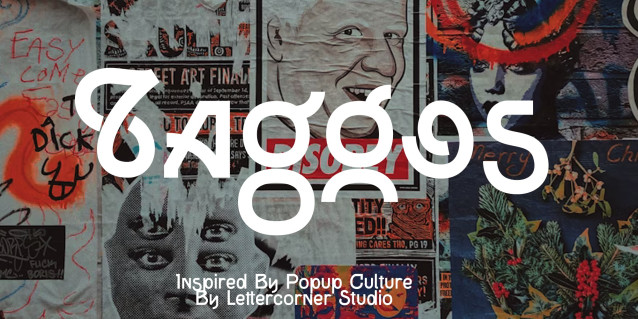
Taggos Font
Taggos Font is an elegant display font, that features a very delicate and classy look. Not too thin and not too thick, balanced and varied, Galway was designed to enhance the beauty of your projects.